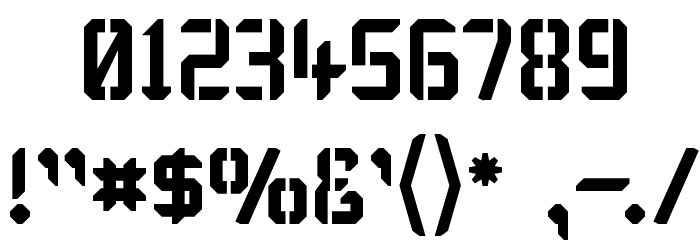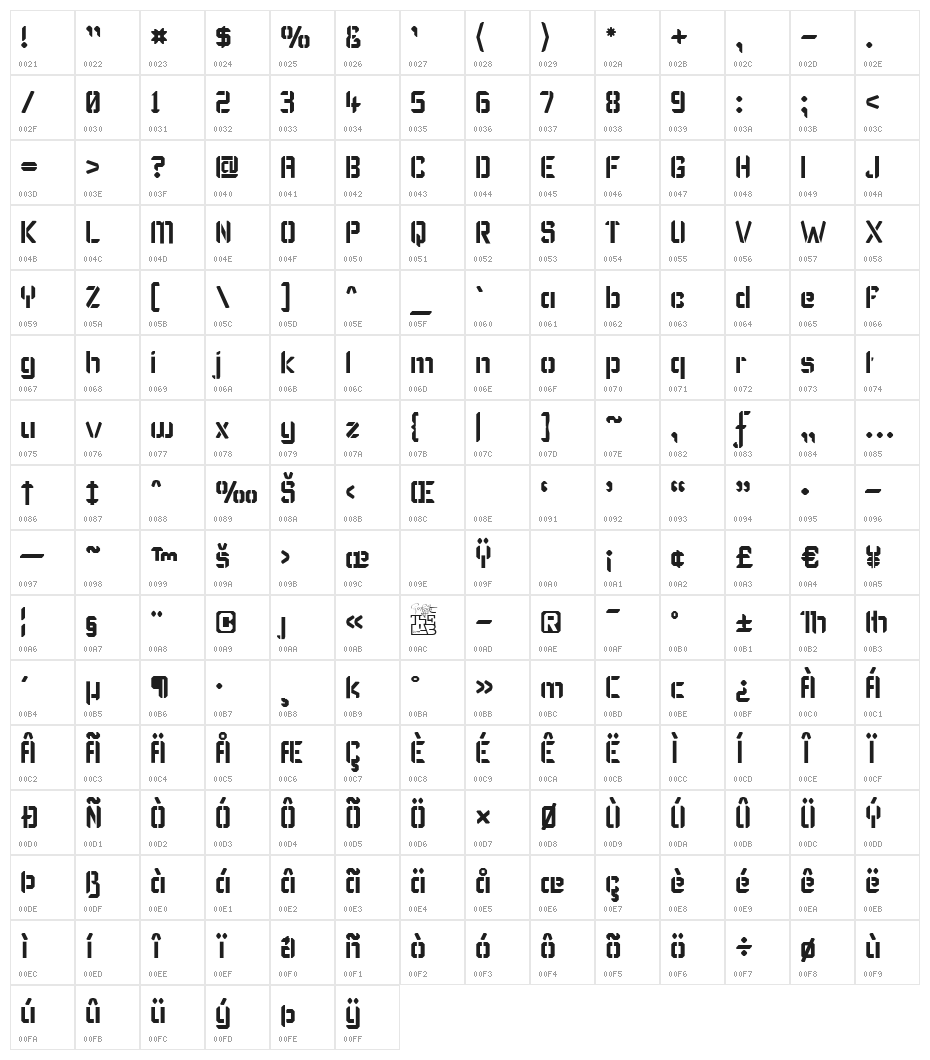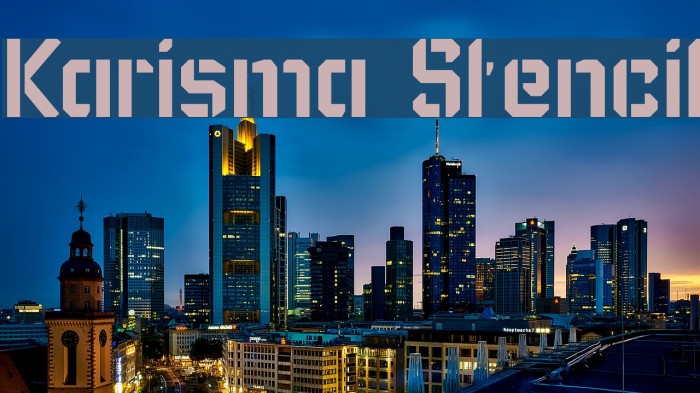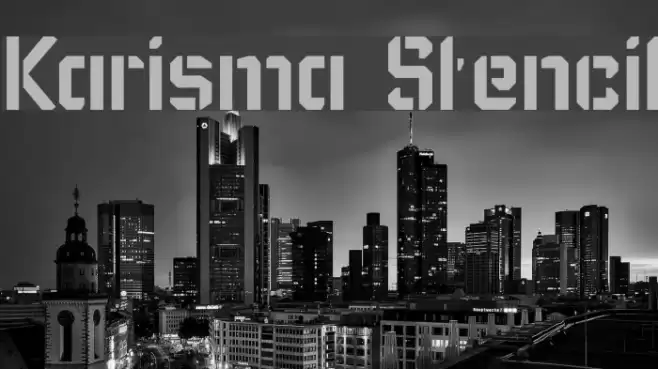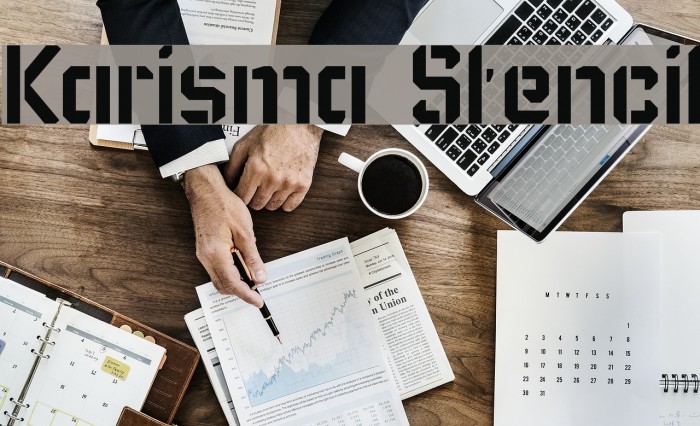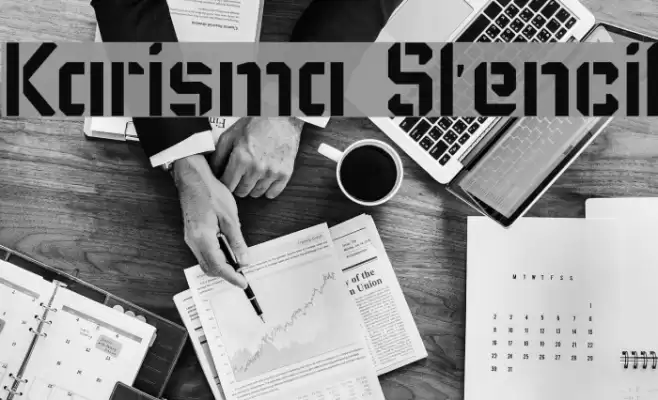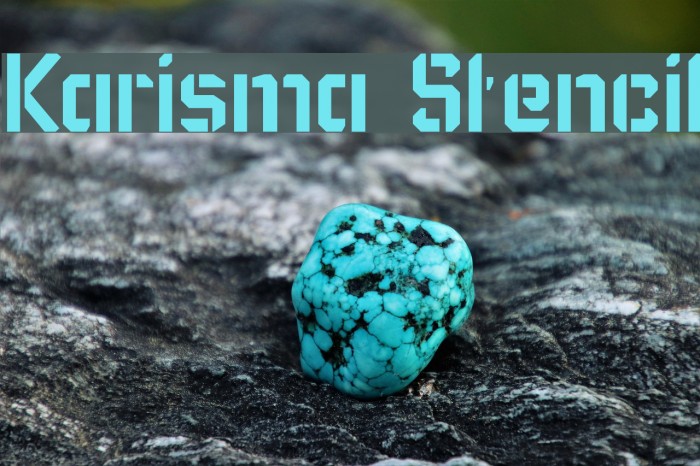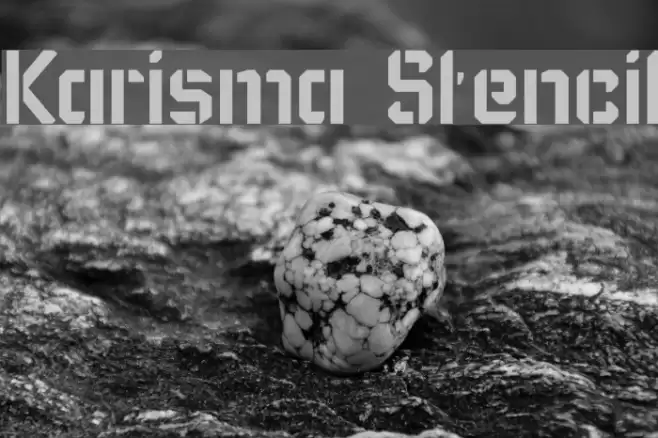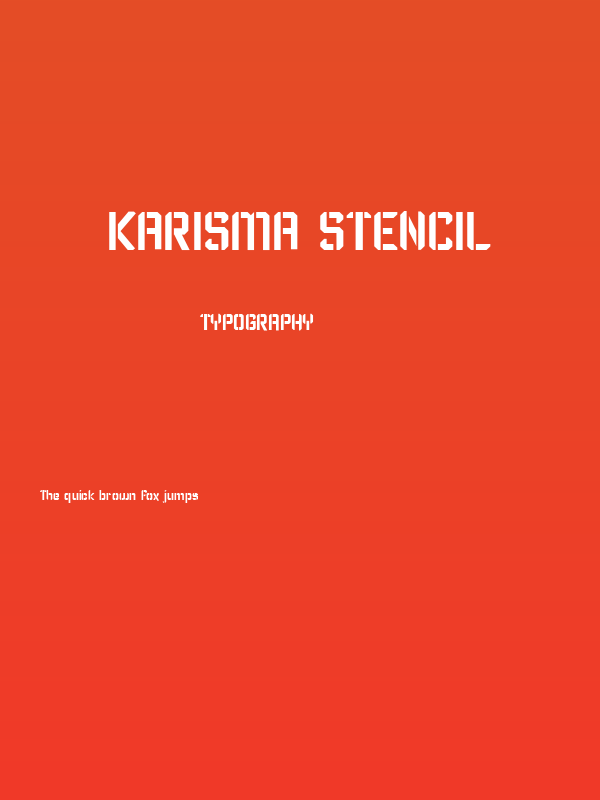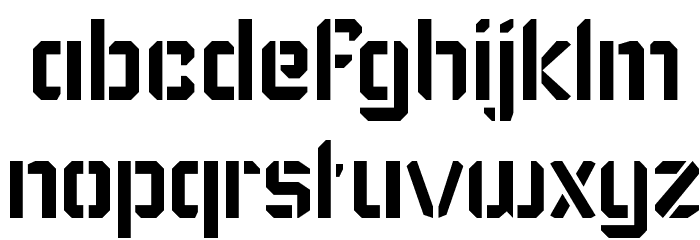
Karisma Stencil Font
Karisma Stencil Description
This font features a bold, geometric stencil design with sharp, angular cuts that create a striking and modern appearance. The uppercase and lowercase letters maintain a consistent style, with clean lines and a uniform structure. The numbers and special characters follow the same design principles, ensuring a cohesive look across all elements. The stencil effect adds a unique touch, making it ideal for projects that require a bold statement. The font's strong presence and distinct style make it suitable for a variety of creative applications.
| Proposed Projects | Ideal for branding, posters, signage, and any project requiring a bold, modern aesthetic. |